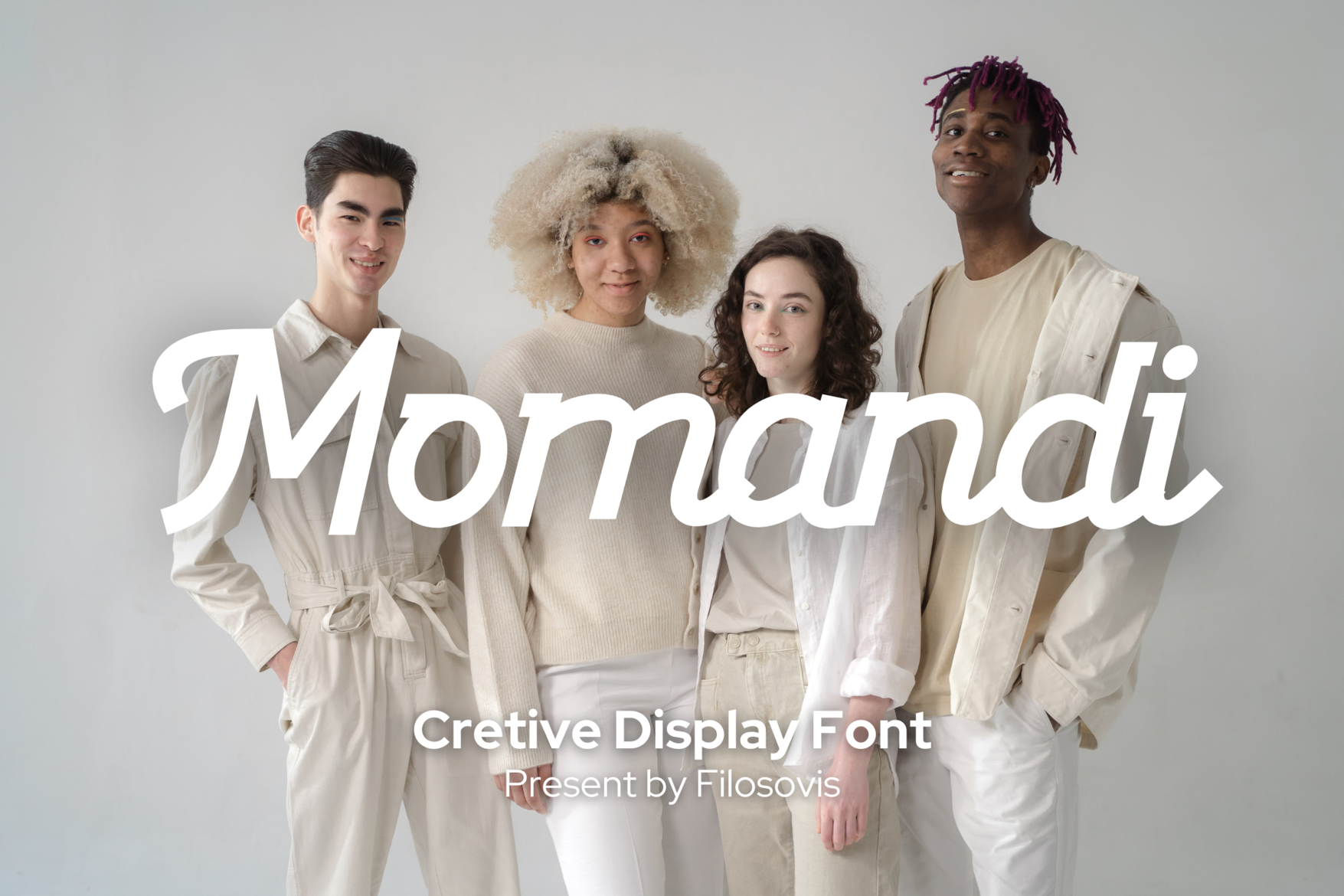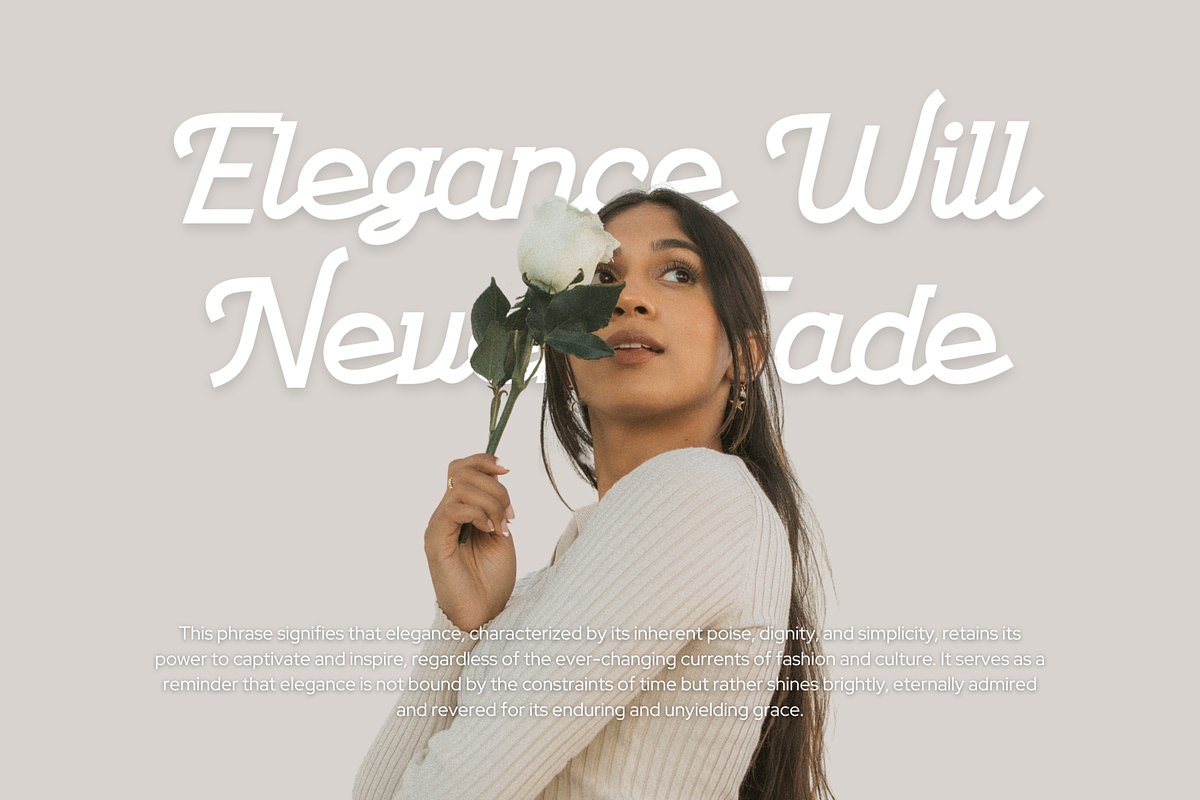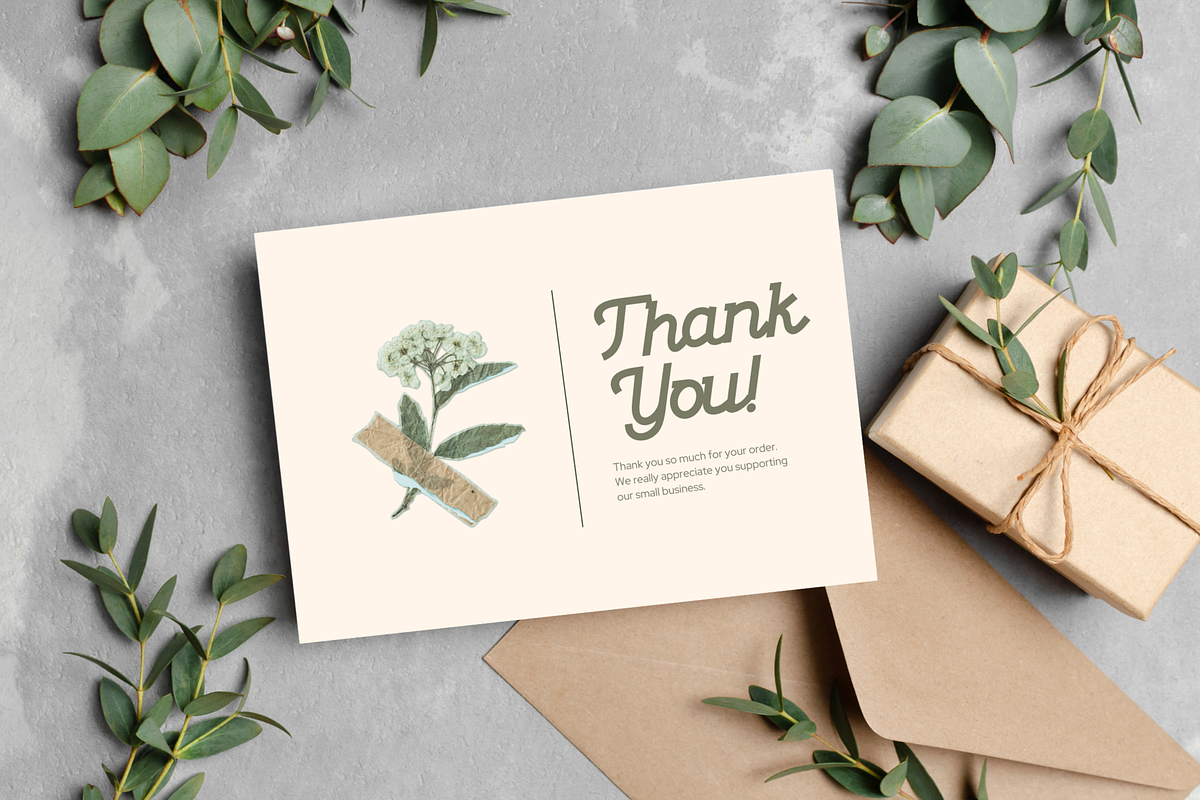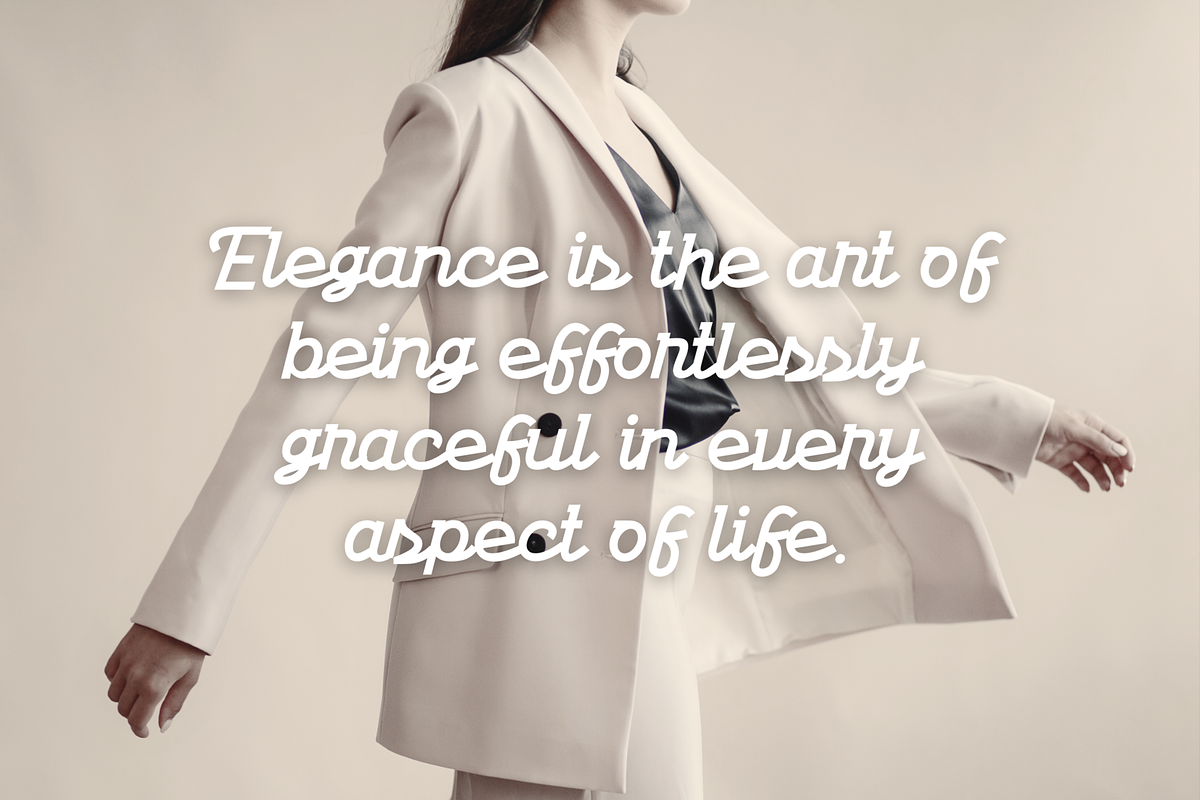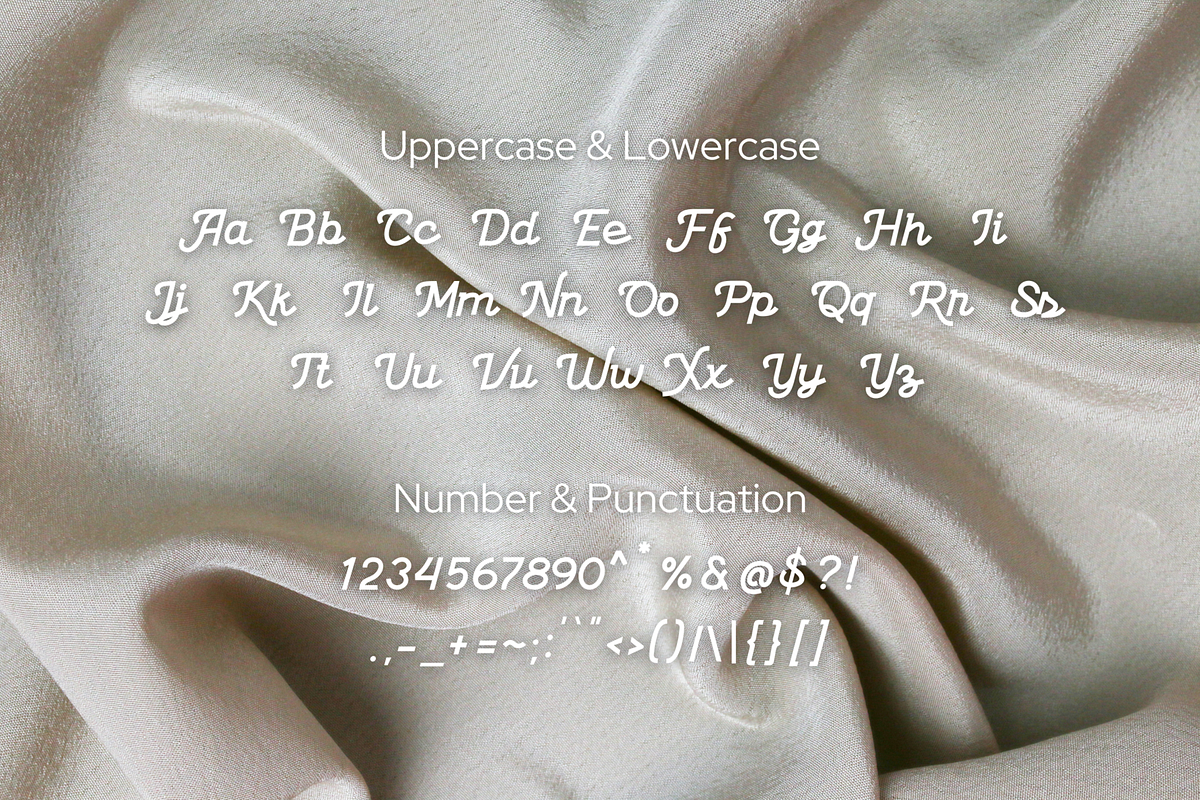
Momandi | Creative Display Font
Momandi font is characterized by a sans serif font with modern letter design. The sans serif font style also adds a simple and attractive feel that is approachable, making it a friendly and attractive choice for any project.
Created By | filosovis™